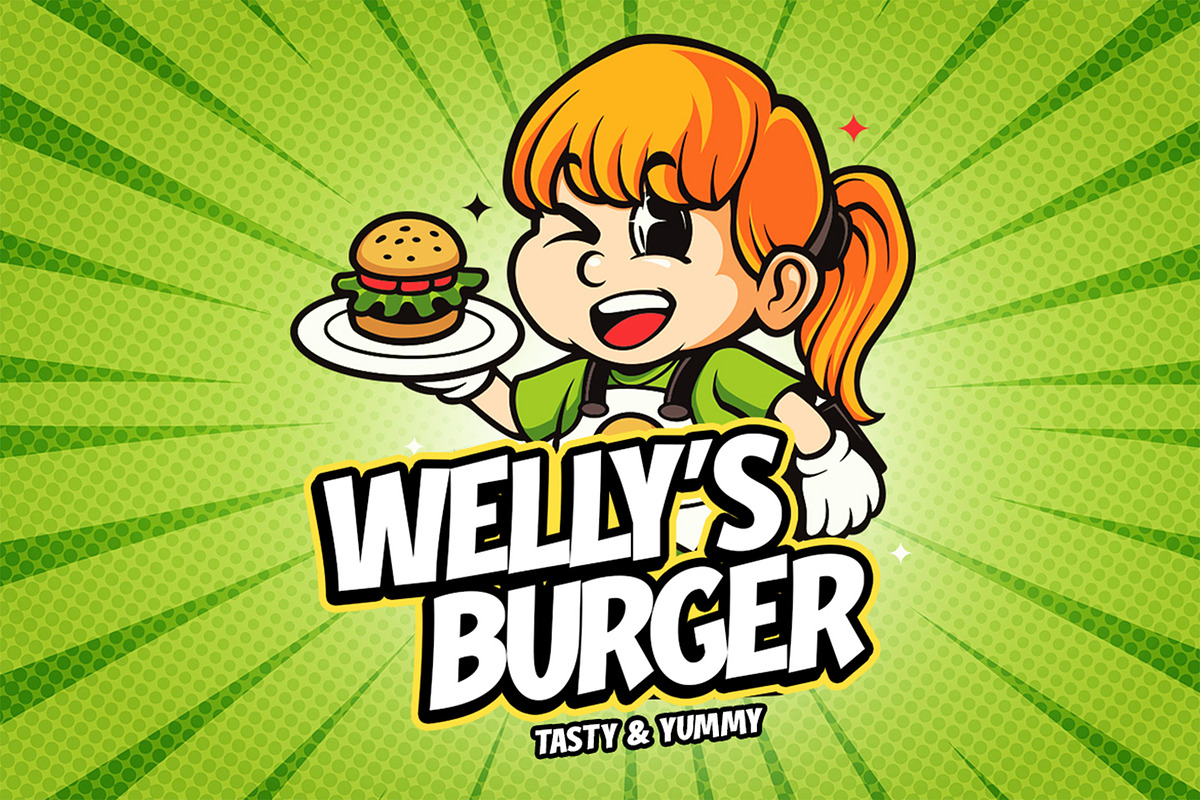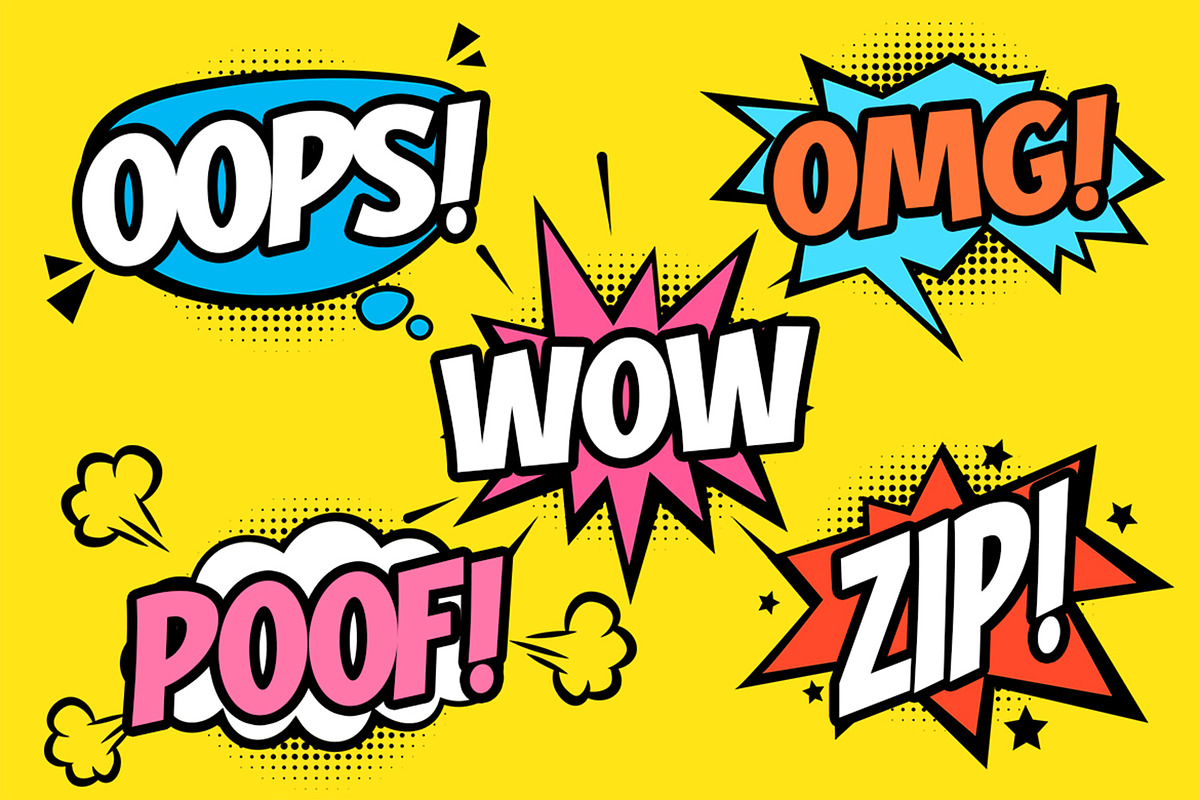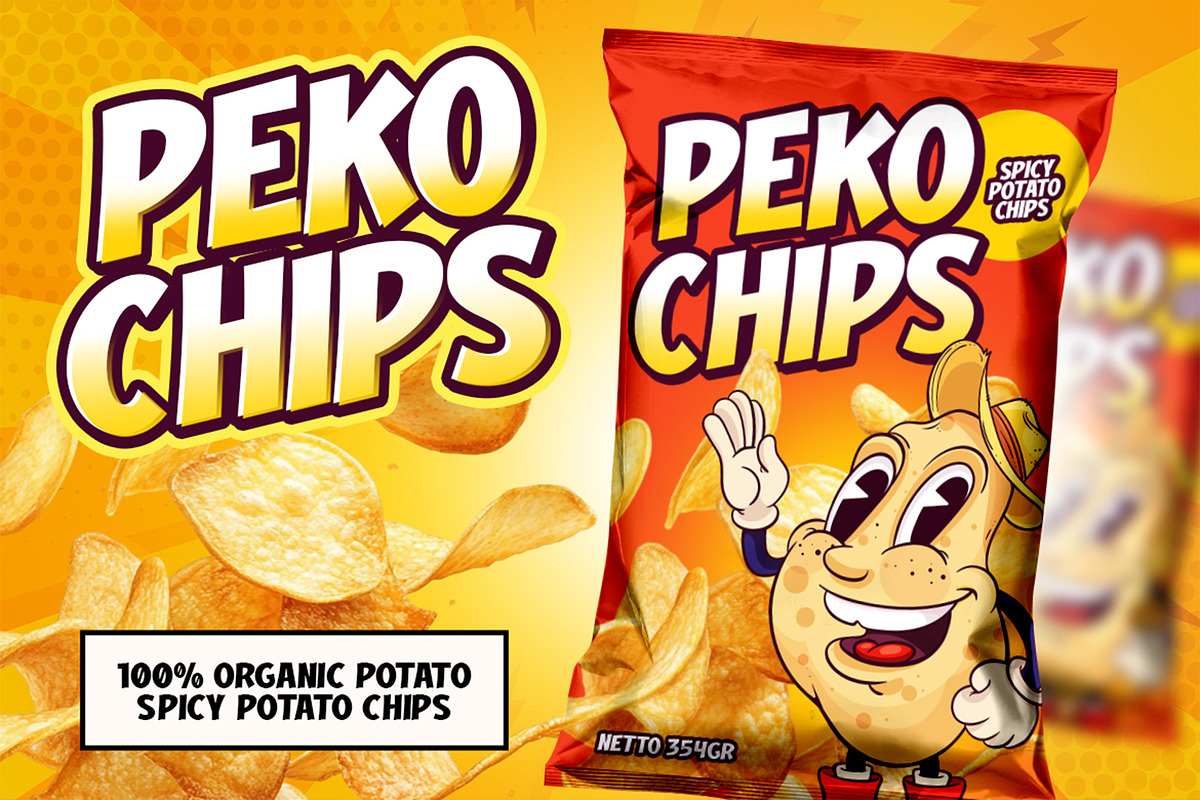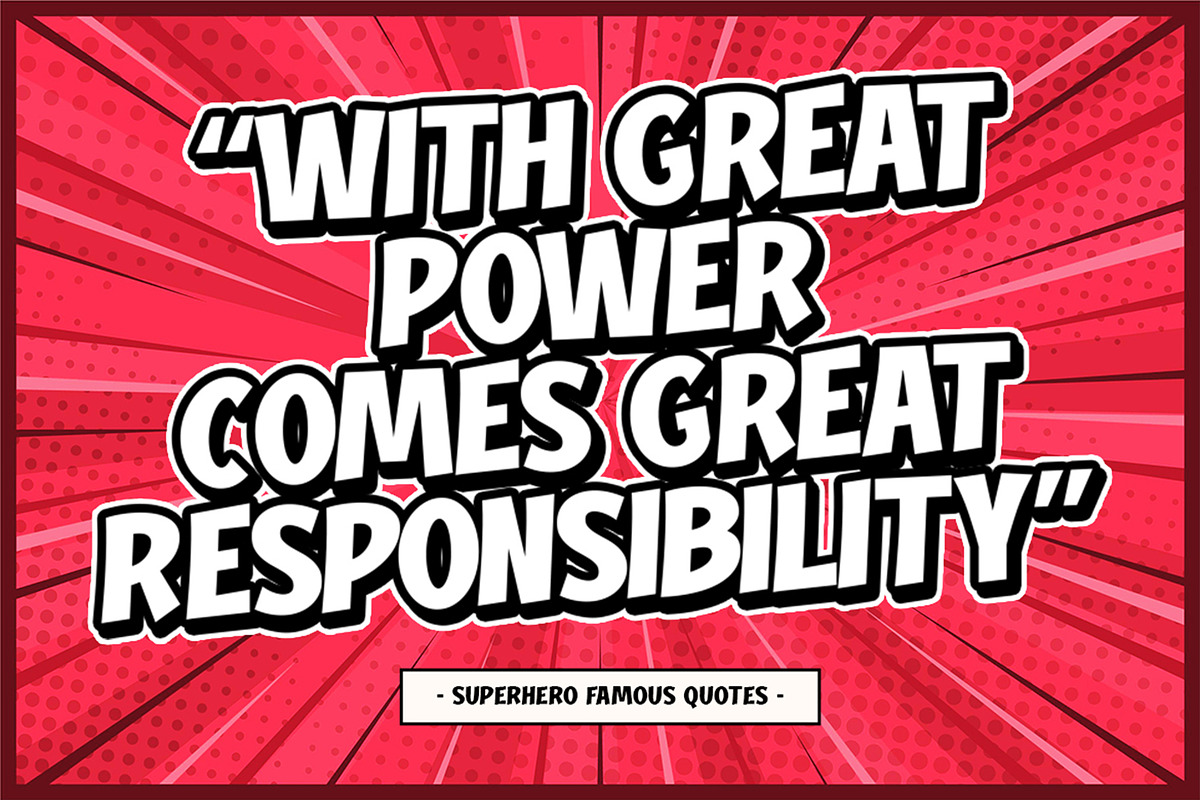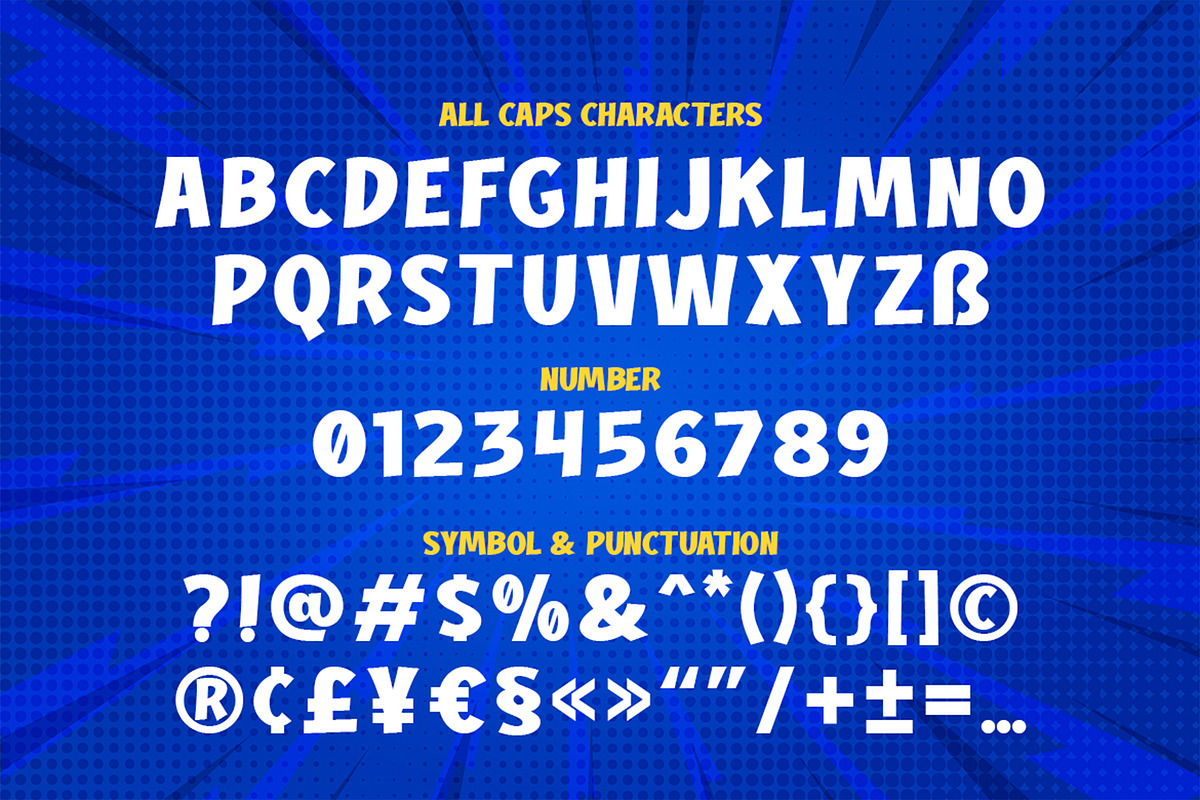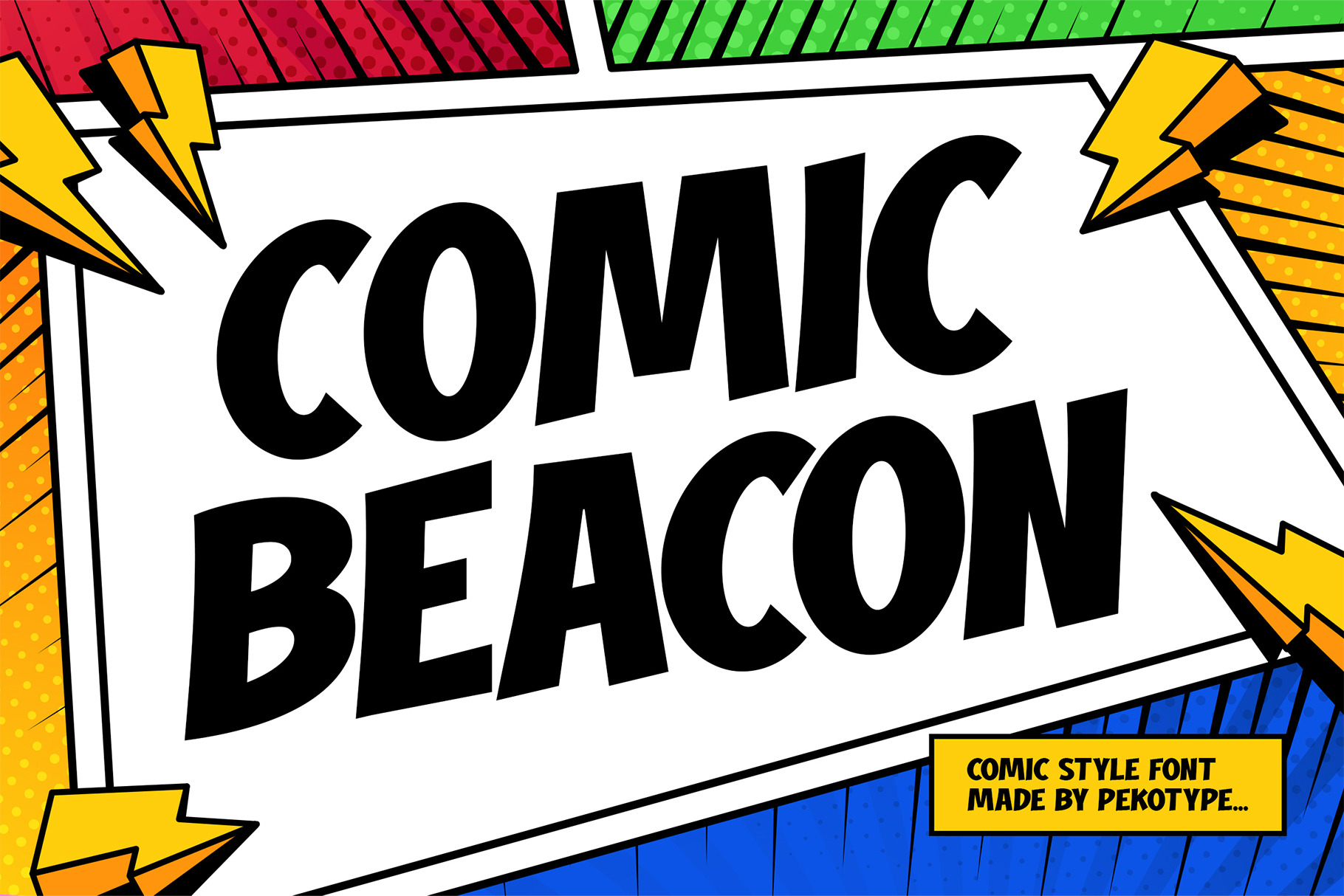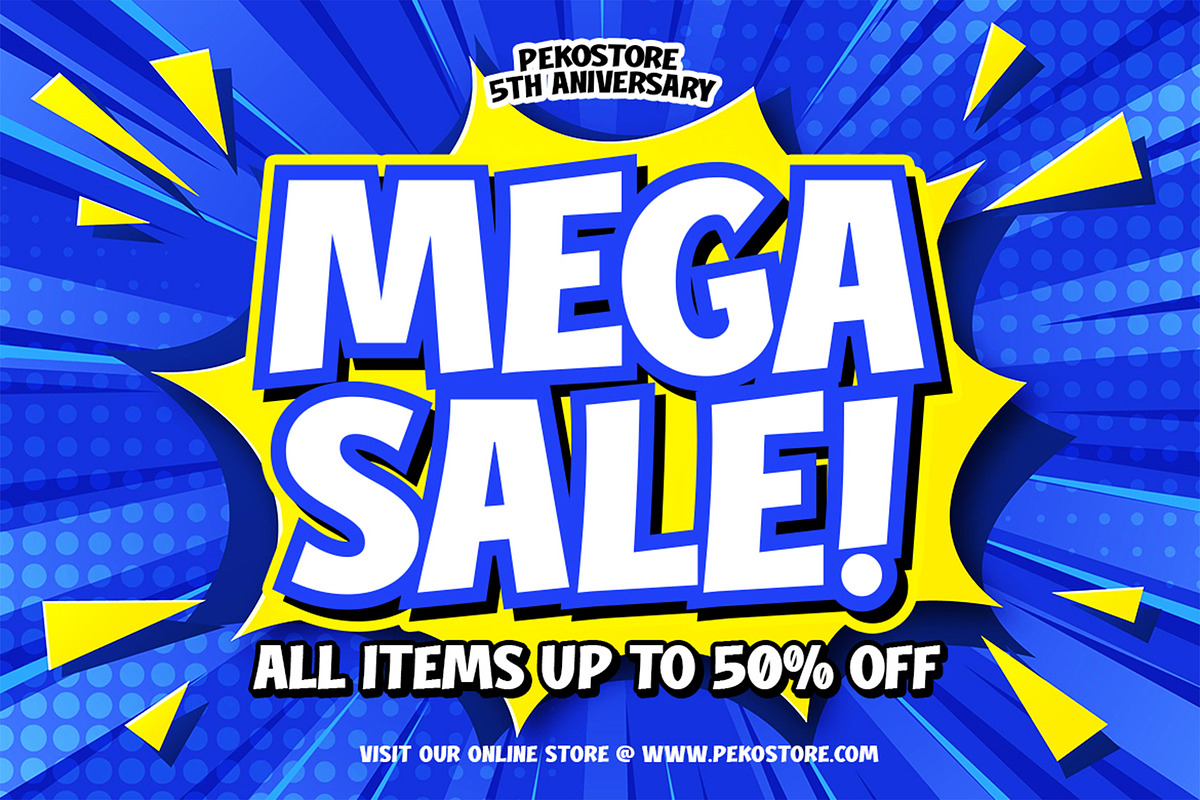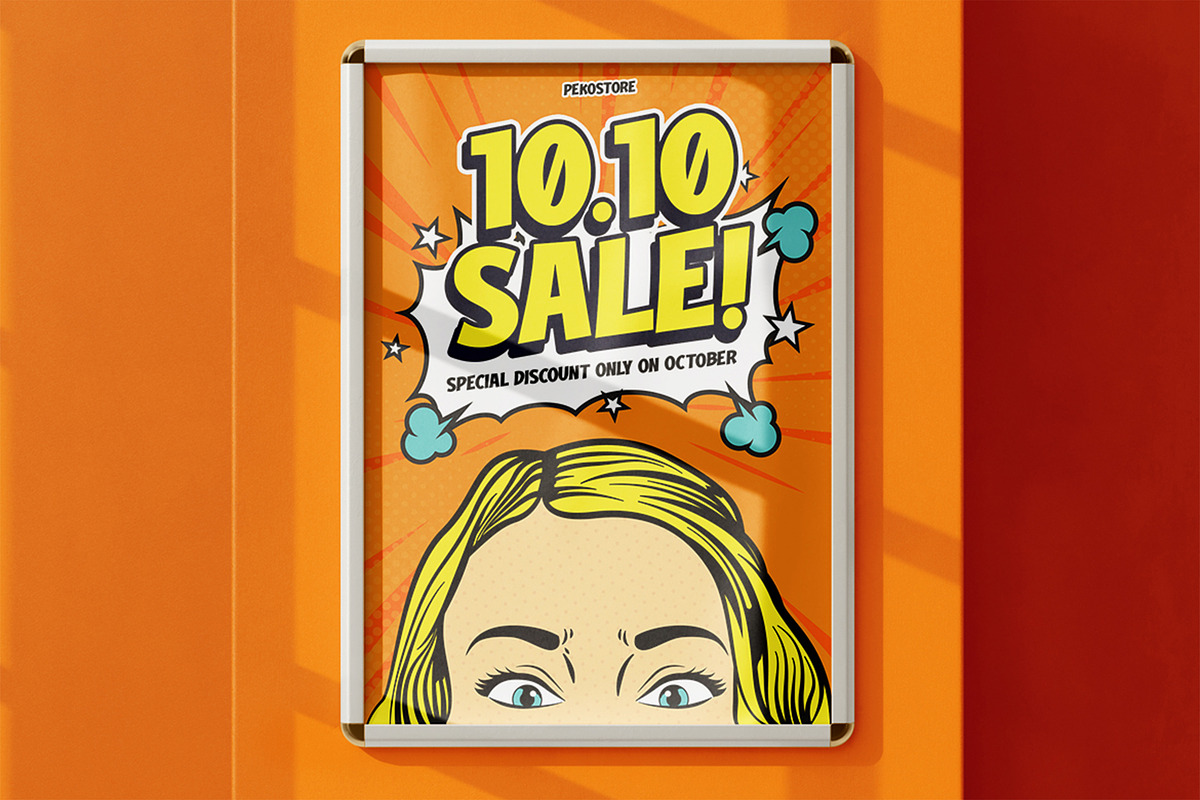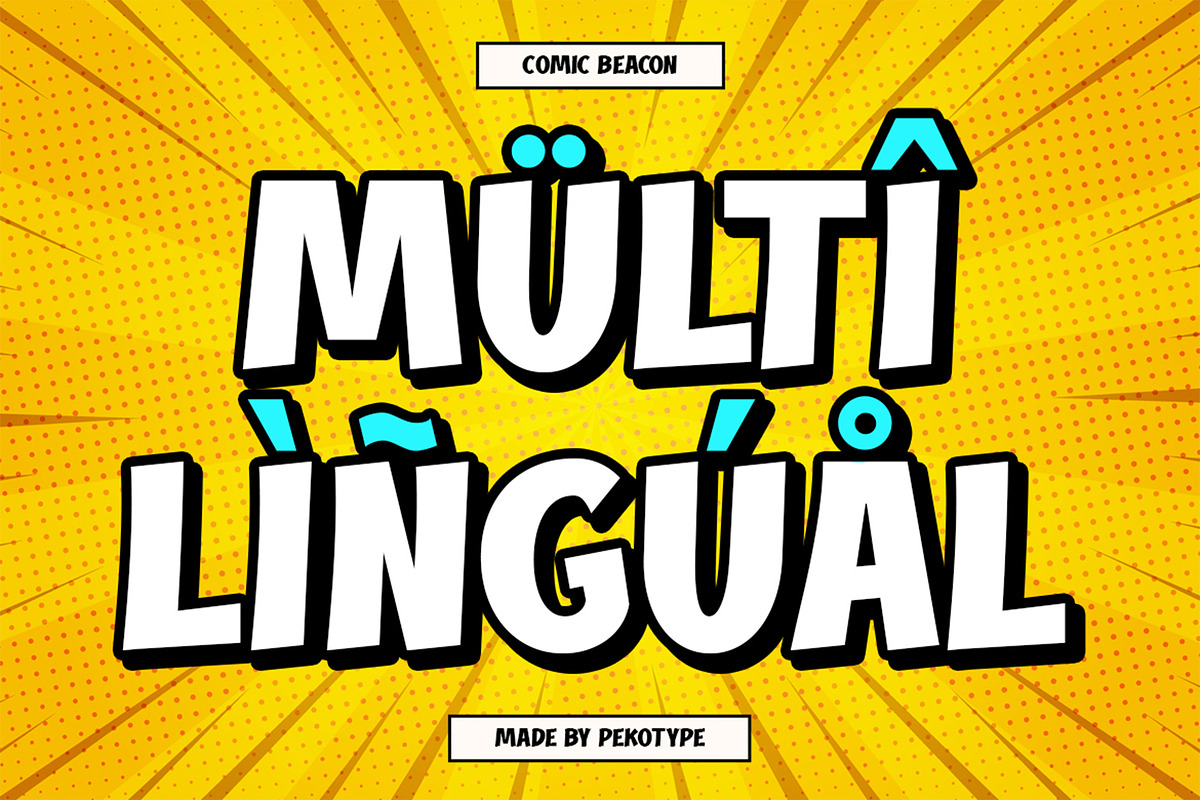
Comic Beacon - Comic Cartoon Font
COMIC BEACON – Bold Comic Font for Pop Art & Retro Vibes
Looking for a typeface that packs a punch of personality? Comic Beacon is your go-to bold comic font designed to light up your creative projects with retro charm and playful energy. With its thick strokes, dynamic curves, and expressive forms, this display font is perfect for making a statement, loud and clear.
Whether you're designing a comic book, creating pop art-inspired visuals, crafting standout logos, or elevating your merchandise, Comic Beacon brings that nostalgic yet modern feel to the table. It's a great fit for retro posters, colorful social media graphics, billboards, and more.
Optimized for readability and impact, Comic Beacon delivers the bold, fun aesthetic that captures attention and keeps the vibe upbeat. It's more than just a font—it’s a visual voice for your most daring ideas.
- Number, symbol, & punctuation
Let Comic Beacon shine as the star of your next creative project!